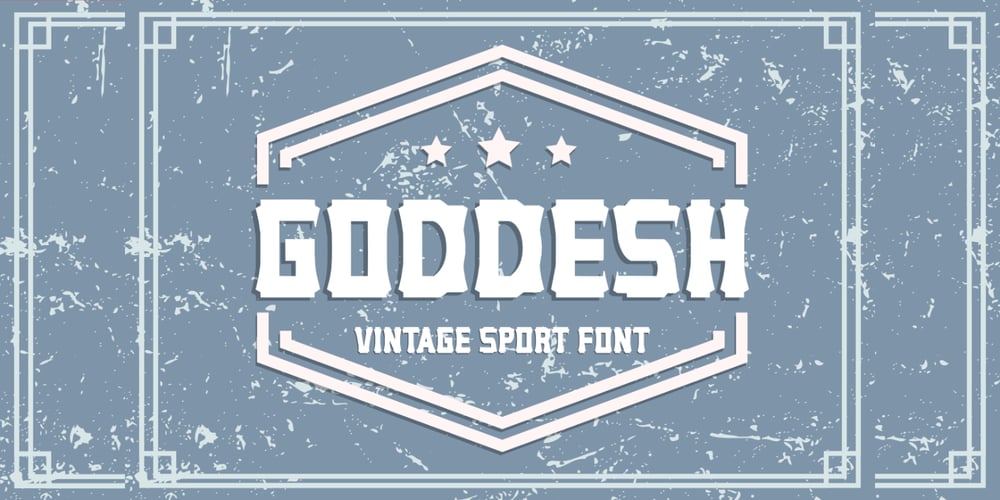
Goddesh
Goddesh font
Goddesh Font Family was designed by Bayu Aji Fais Mursid and published by Bayuktx. Goddesh contains 1 styles and family package options. Hello,Thank you for visiting my products, we will give you the best choice.Goddesh Vintage Sport Font, This font is made with a high premium quality level which you can use as flyers, quotes, posters, banners, packaging, merchandise, logotypes and much more.FEATURES :* Uppercase* Lowercase* Number* Punctuation* Multilingual* PUA Encode* OpentypeFILES INCLUDED :* GoddeshThank you